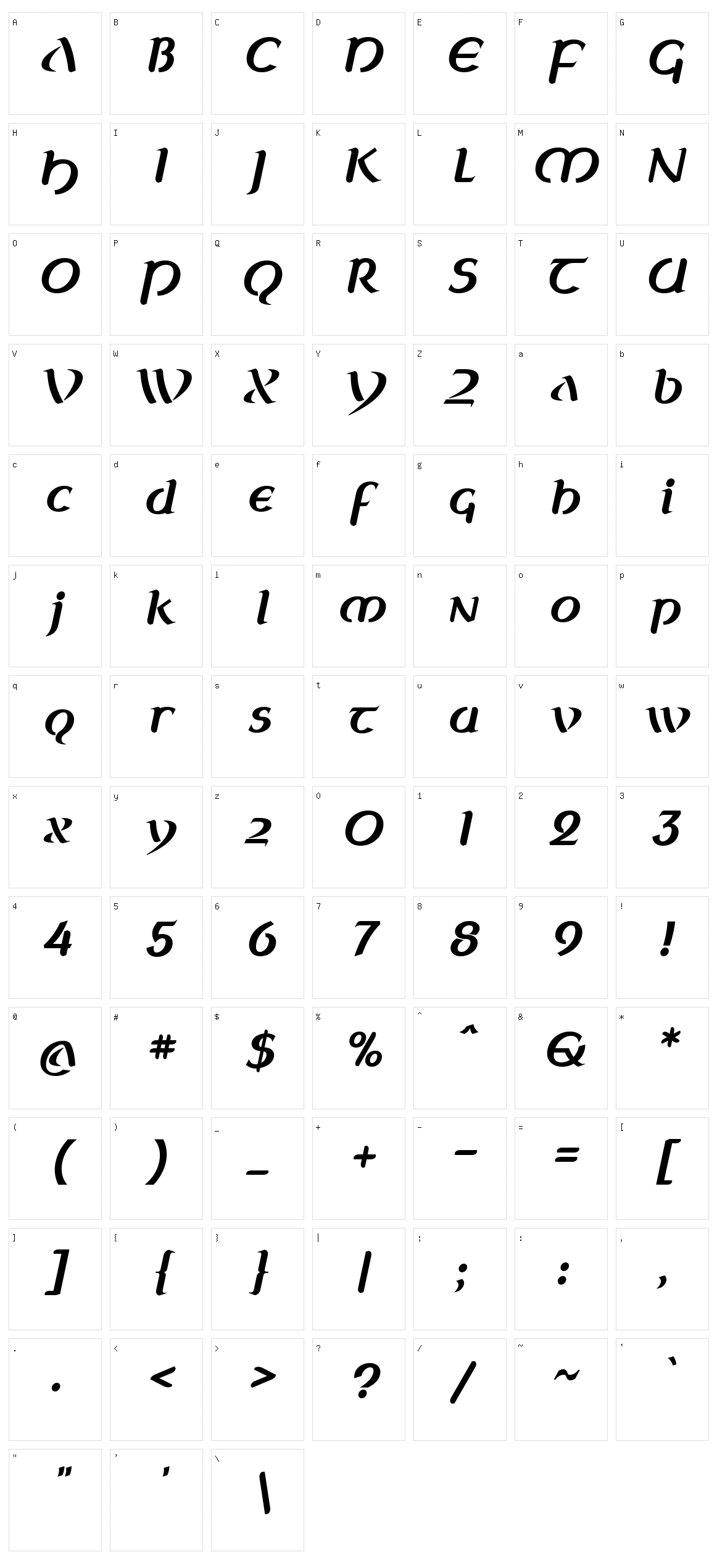
Celtica
"Celtica" Font is a Unicode typeface family that supports all languages
that use the Latin script and its variants, and could be expanded to support
other scripts.
- Changed left/right side bearings in Bold/BoldOblique.
- Fixed kerning for all.
This is my newest font based on uncial, half-uncial and carolingian scripts.
Of course I did it my way, and some glyphs are different from original,
but I tried to save original, old look of this font.
"Celtica" with "Gothica" and "Classica" are a small set of my inspirations
from oldest latin inscriptions.